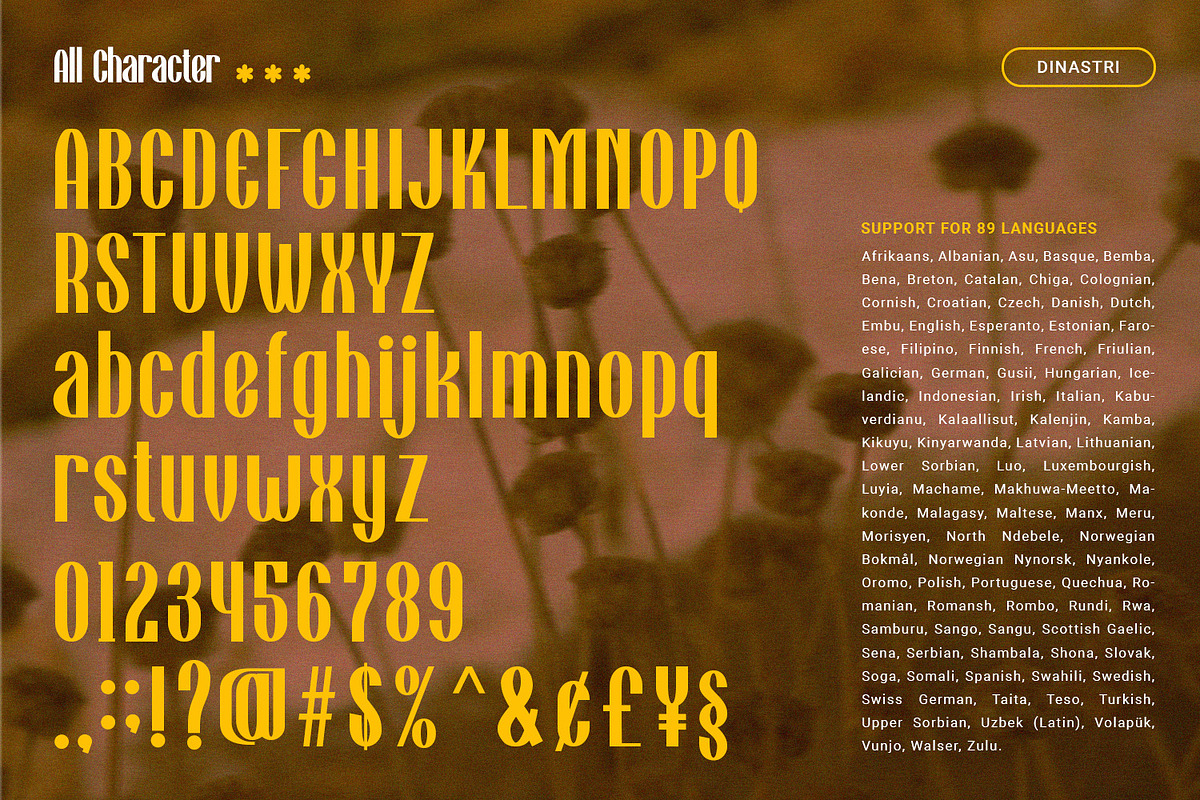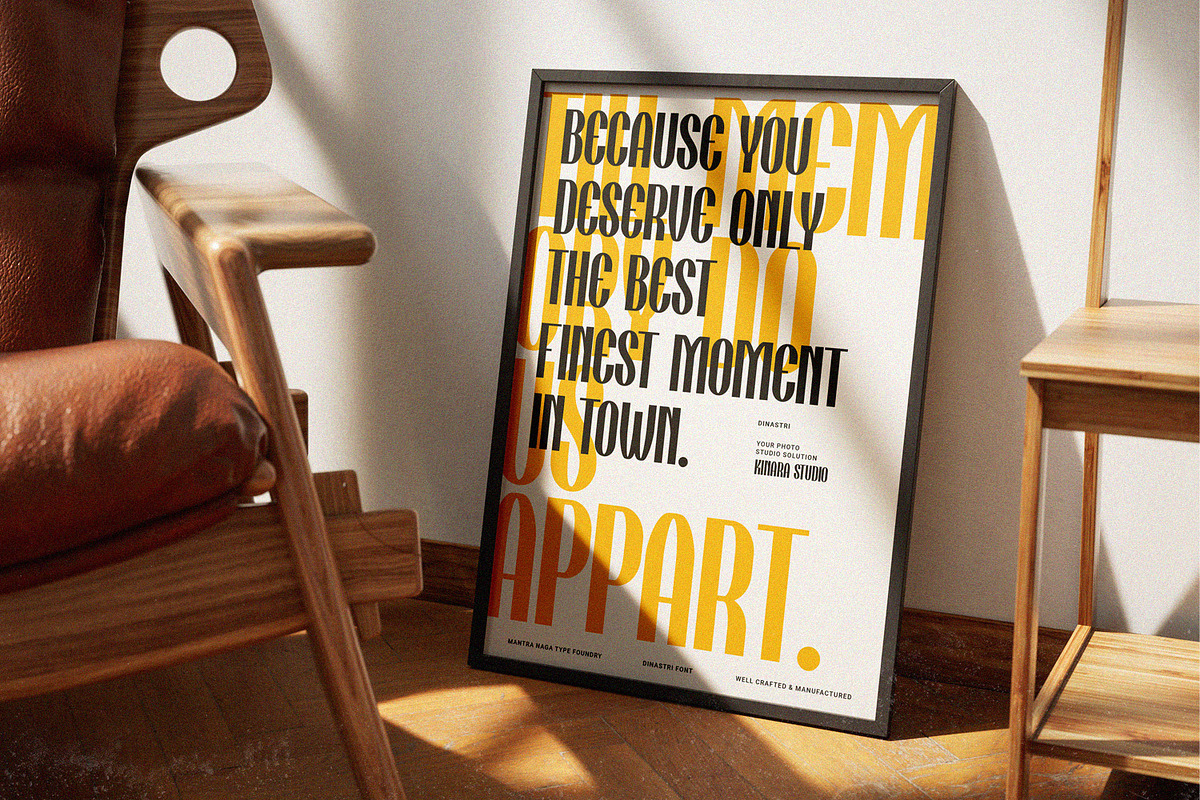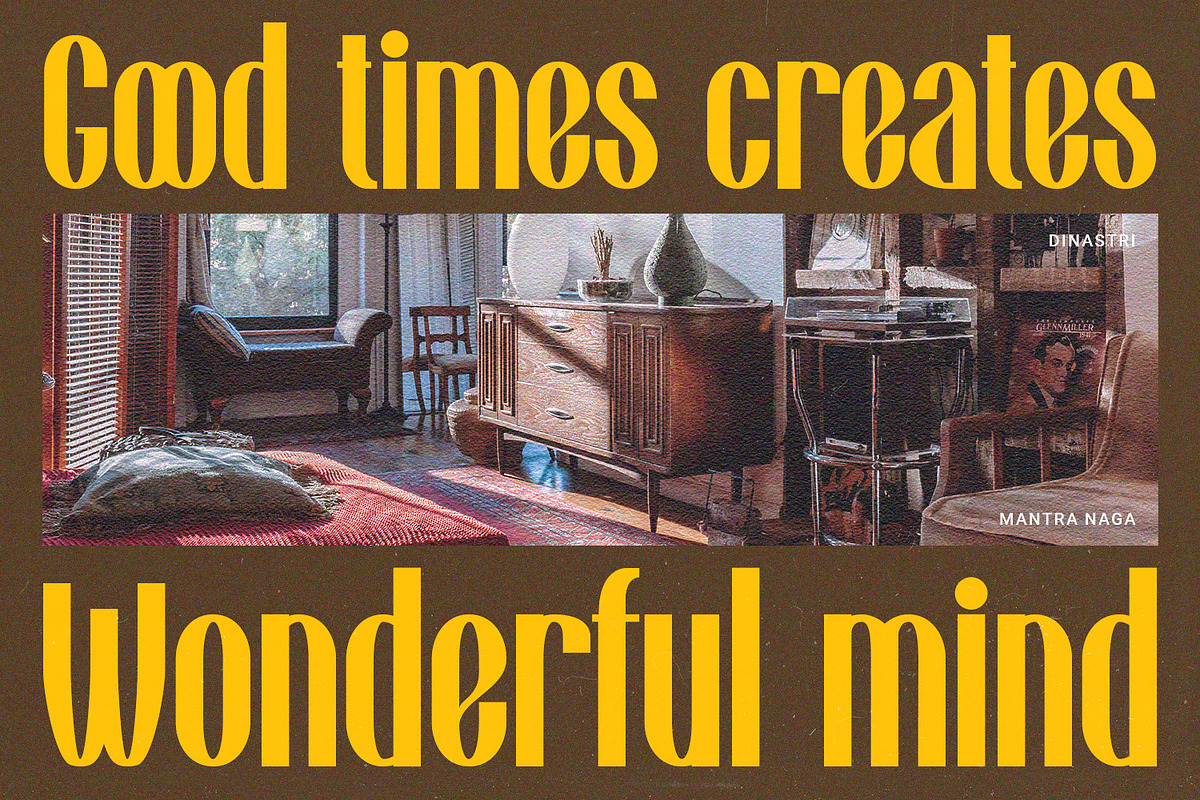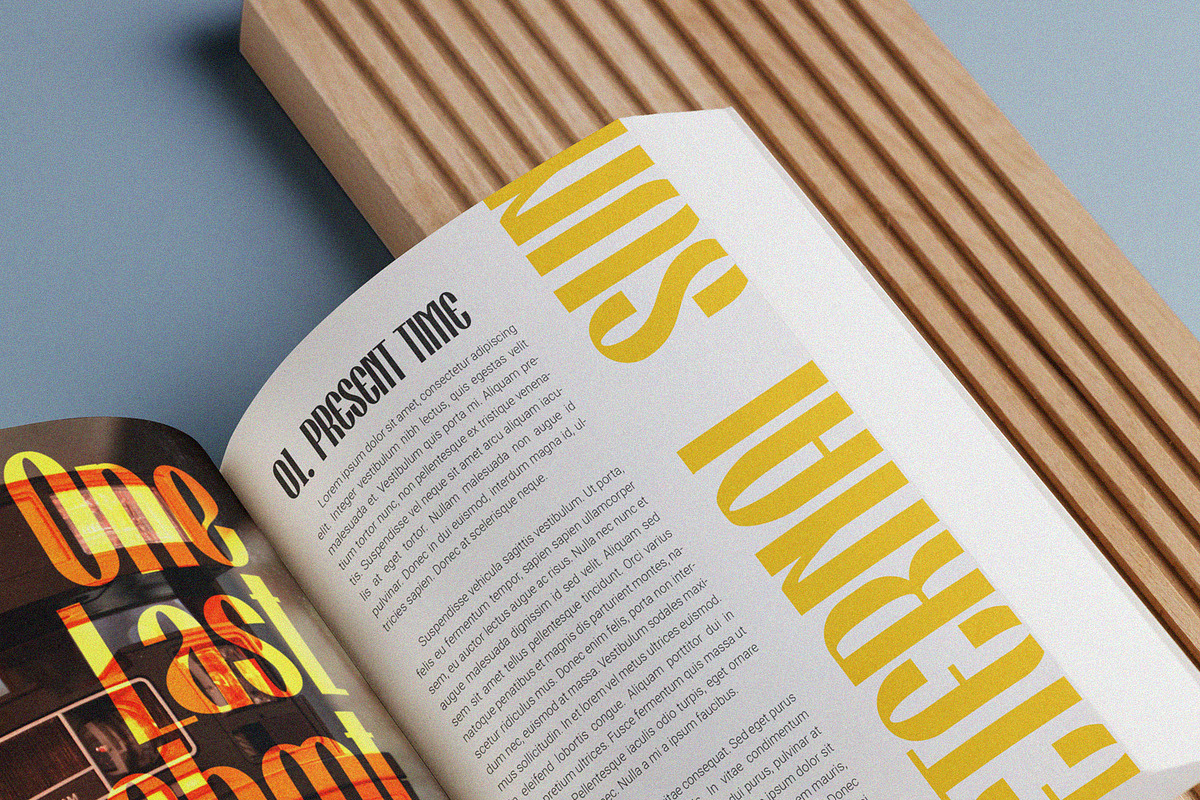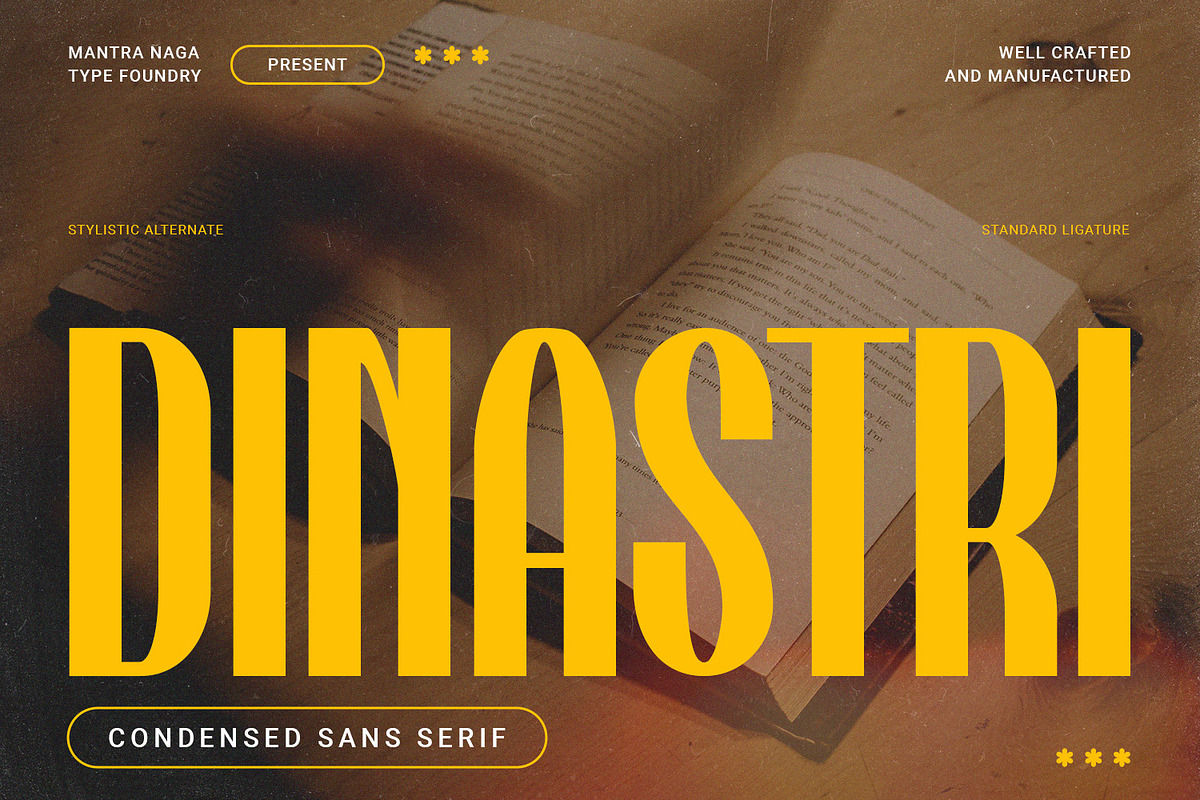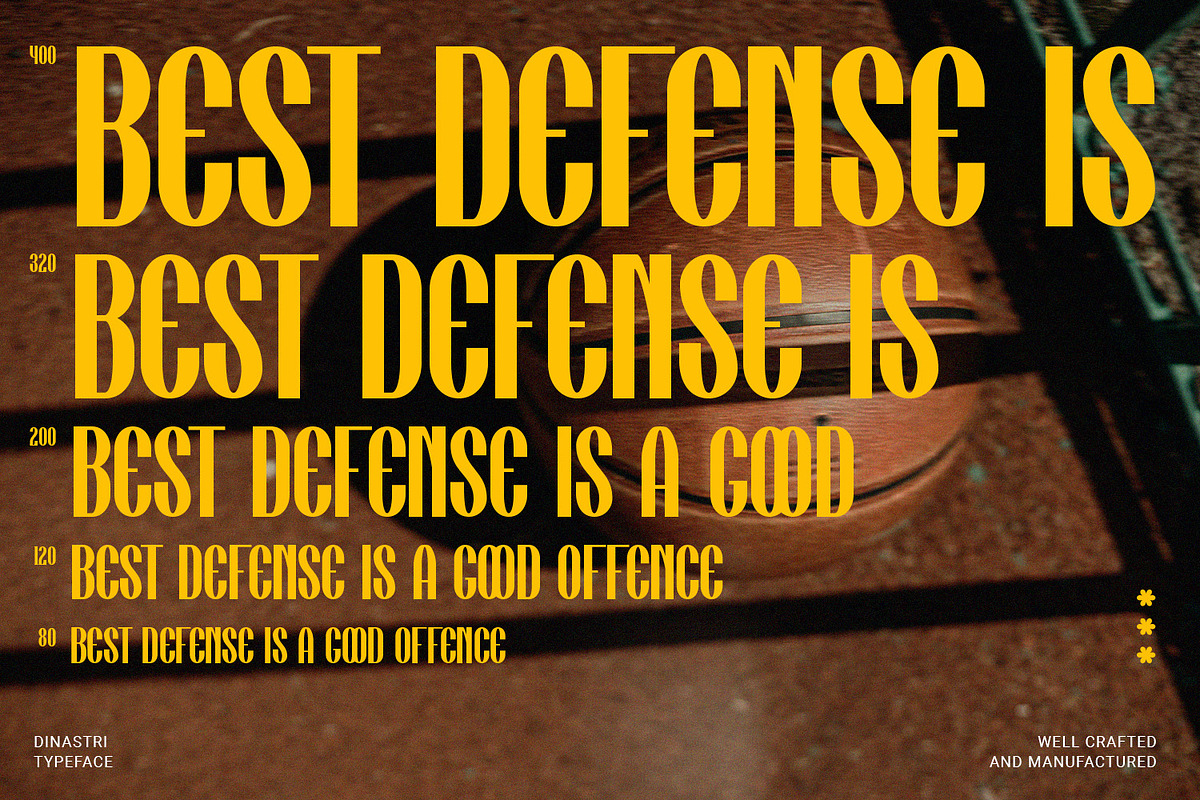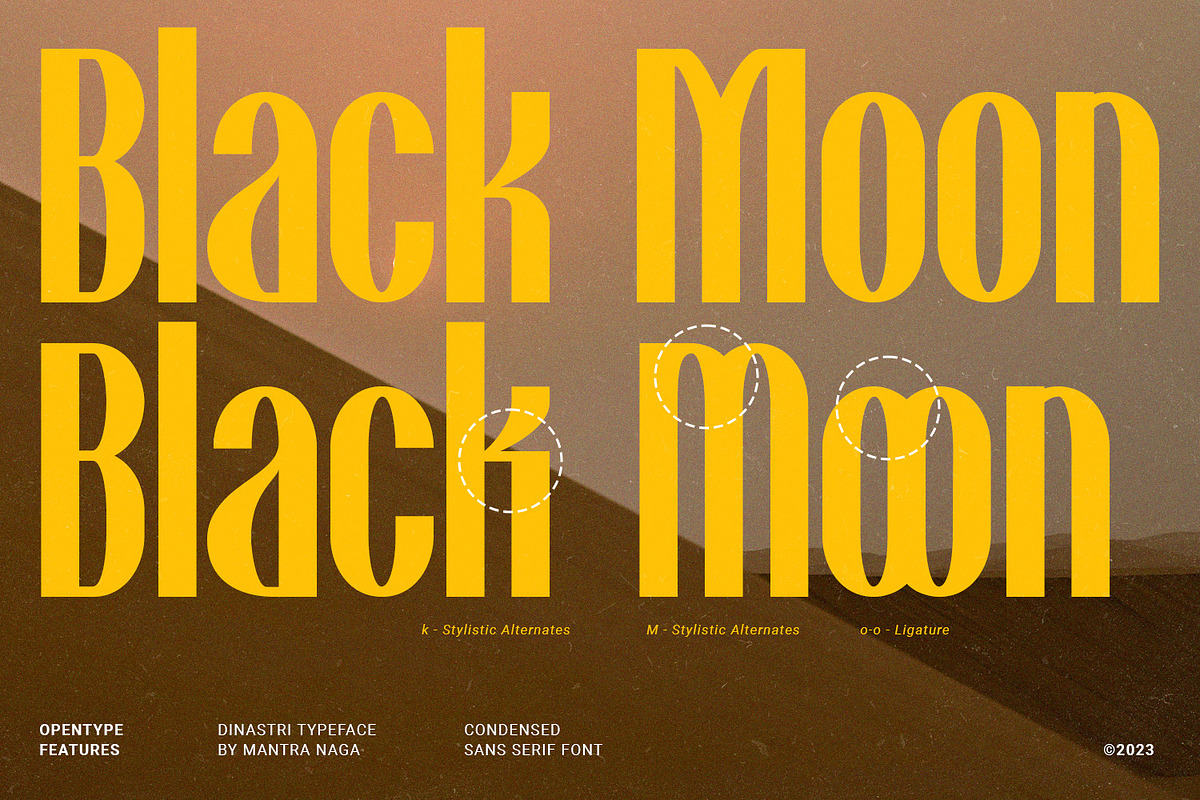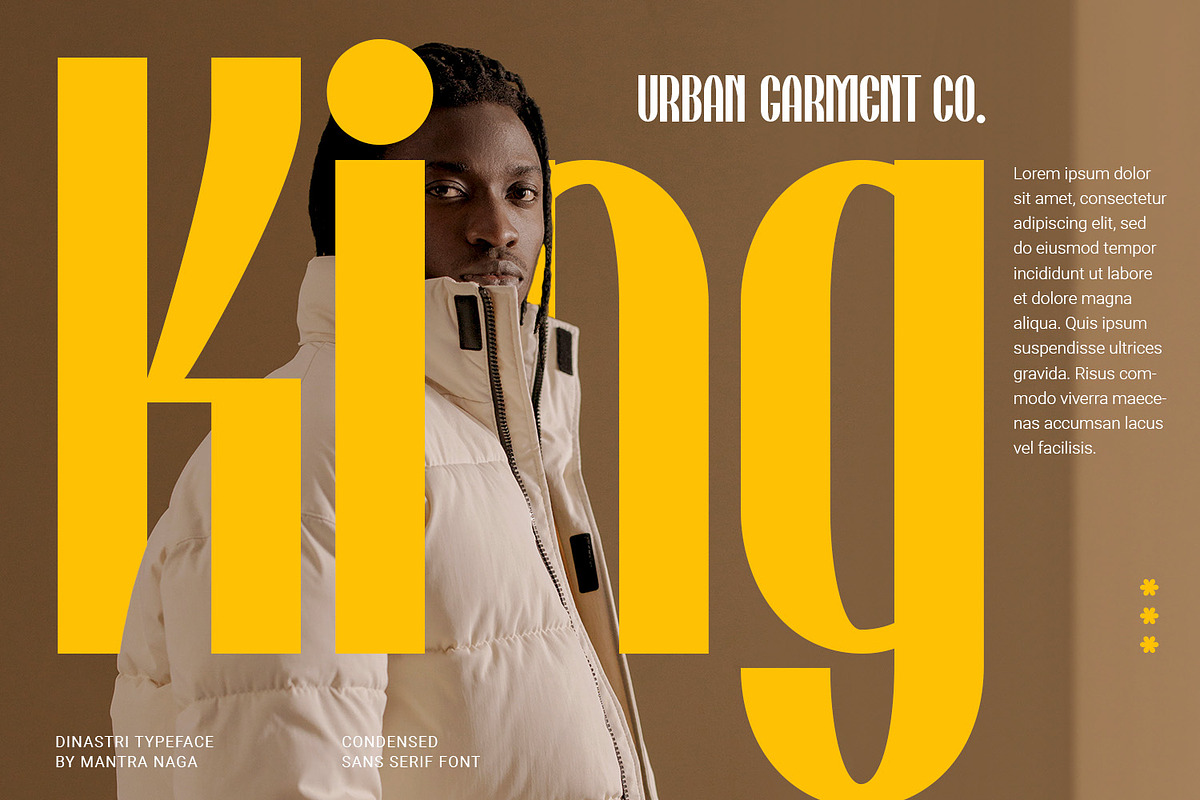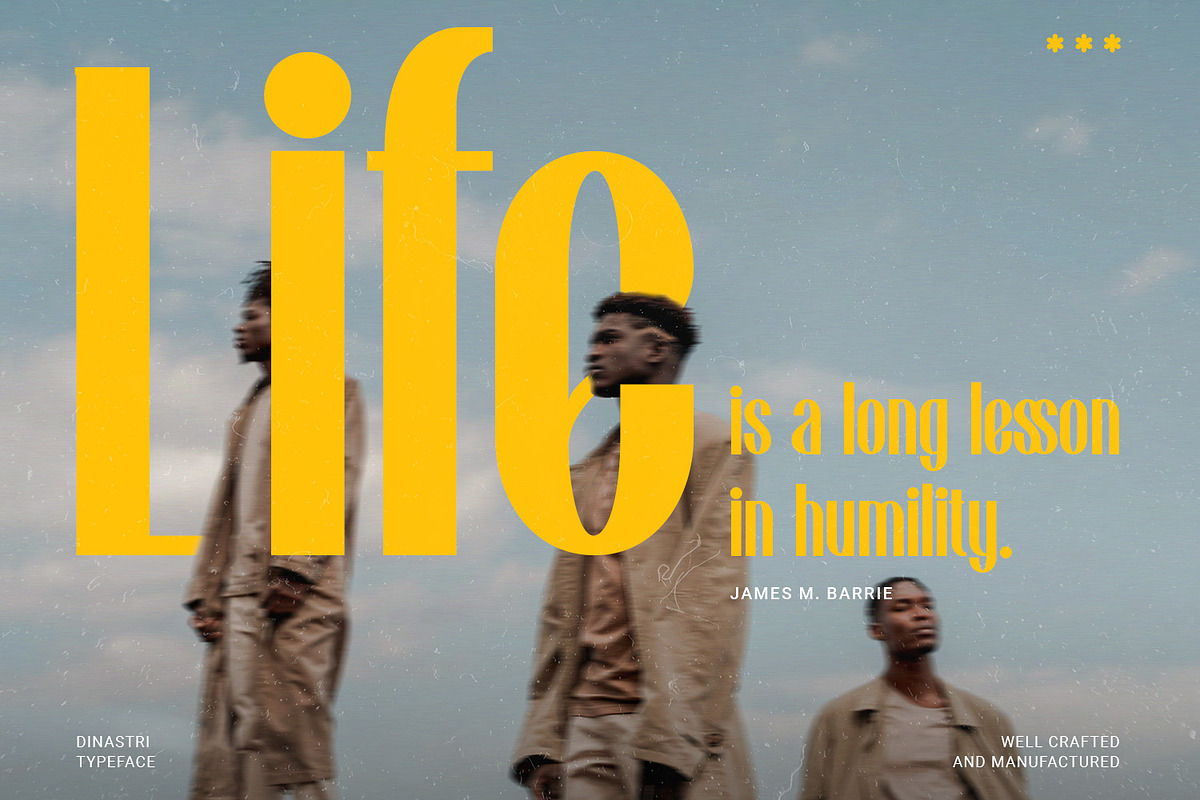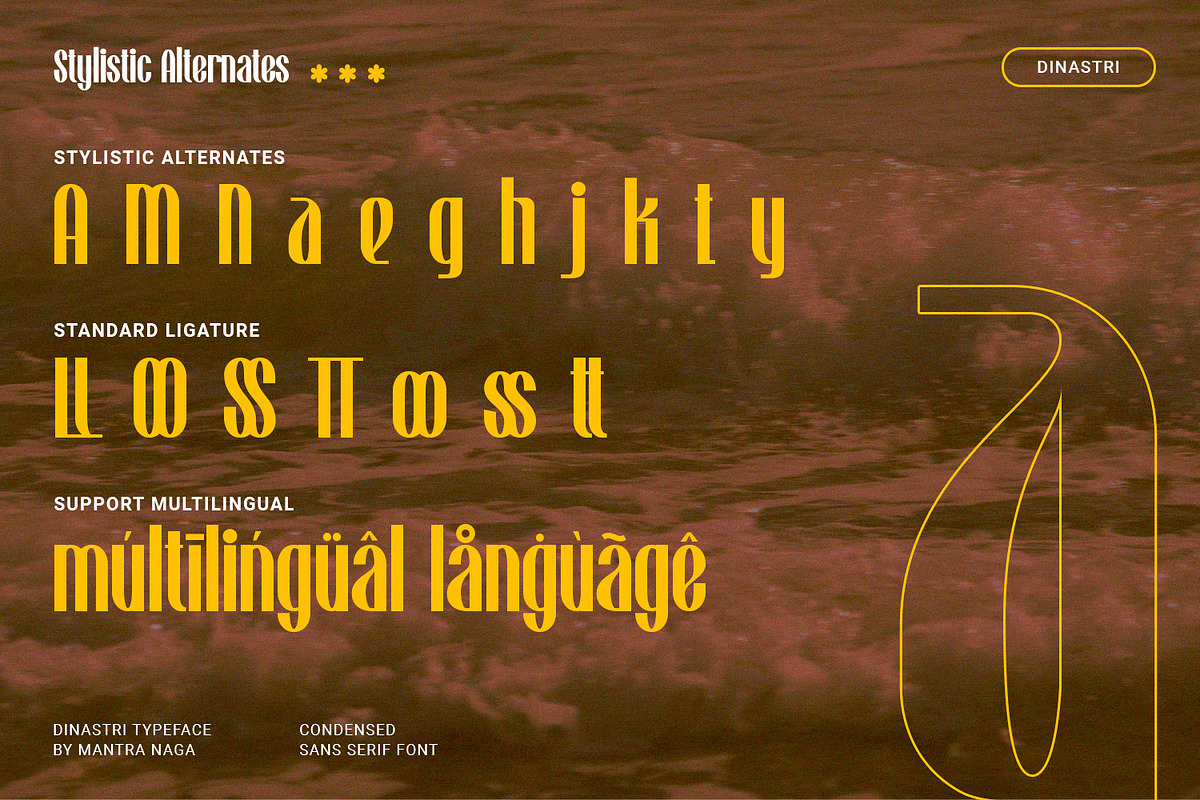
DINASTRI - Condensed Sans Serif
Dinastri is a condensed sans serif font that has a modern edge with bold characteristics. At 385 glyphs, this font is perfect for modern logos, contemporary web designs, or printed headlines.
385 Glyphs
5 Opentype features
7 Ligatures and 11 Stylistic alternates
Multilingual support for 89 languages